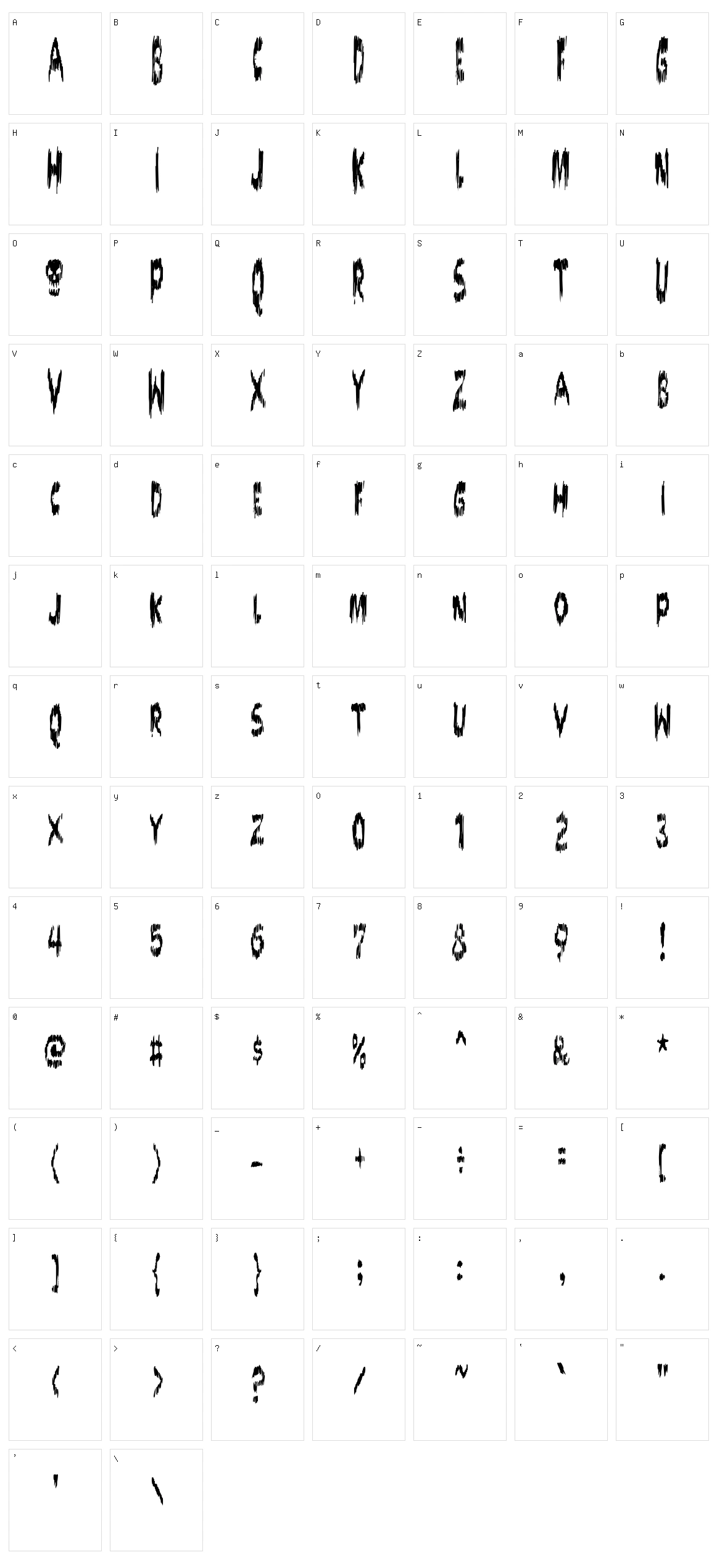
The free font Doktor Terror is carefully designed by Pizzadude, showcasing a thoughtful balance of creativity and usability and falls under the Horror font style. When you download the ZIP file, it contains only 53.25 KB of font files, making it lightweight and quick to download. Please review the license details below to understand permitted usage and distribution rights. If license information is not available, we recommend using this font for personal projects only or contacting the author directly for commercial usage permissions.